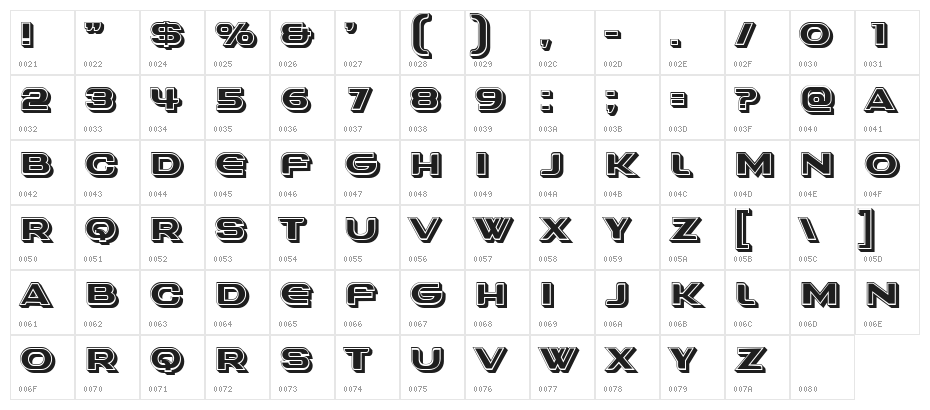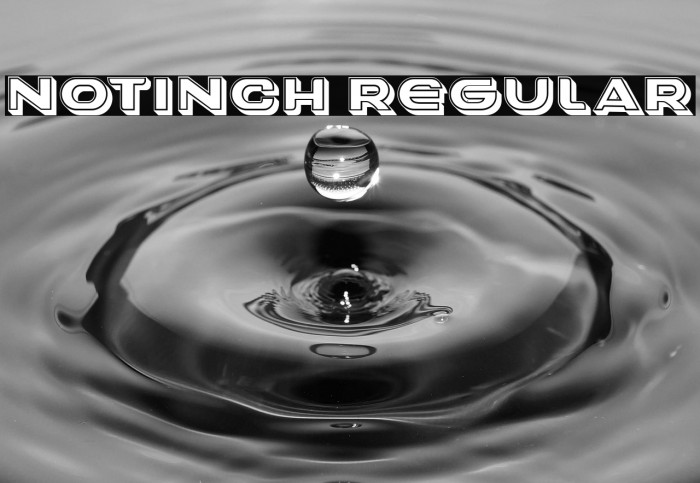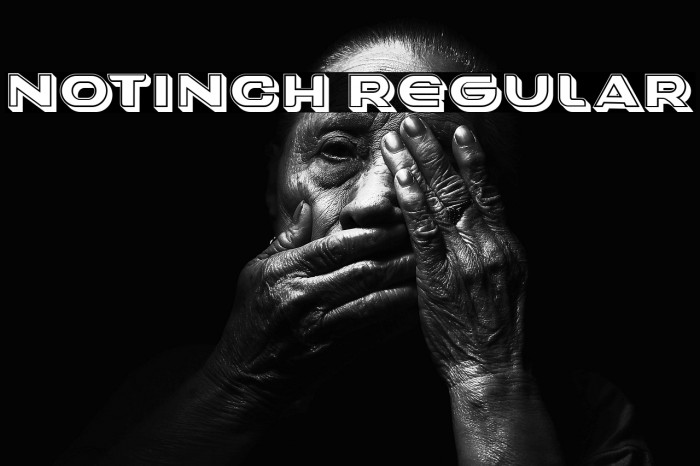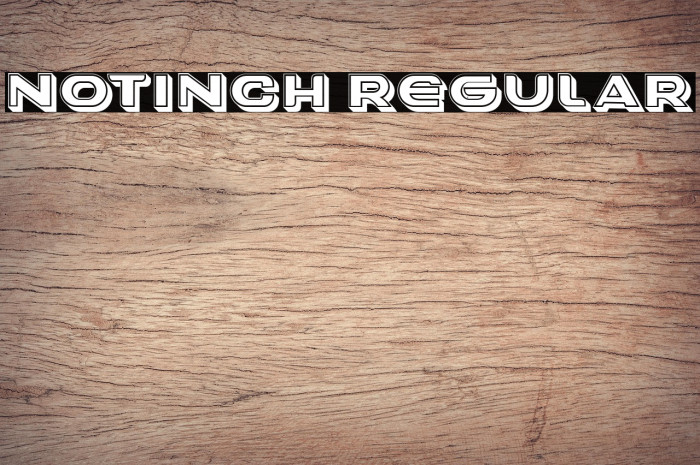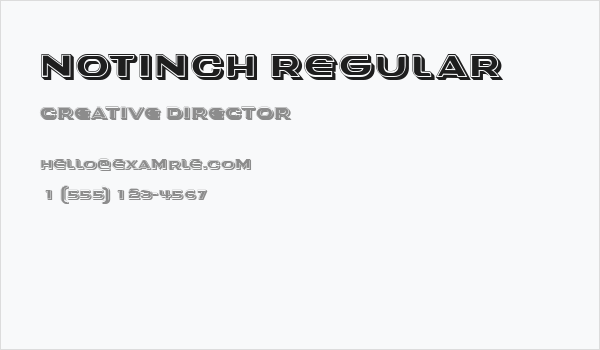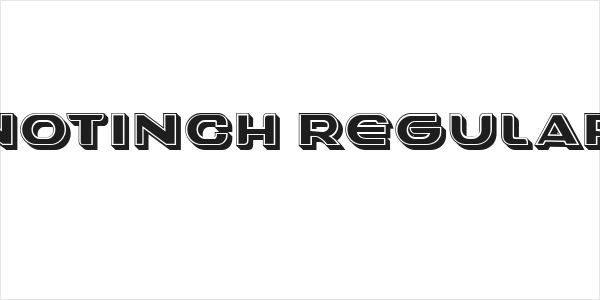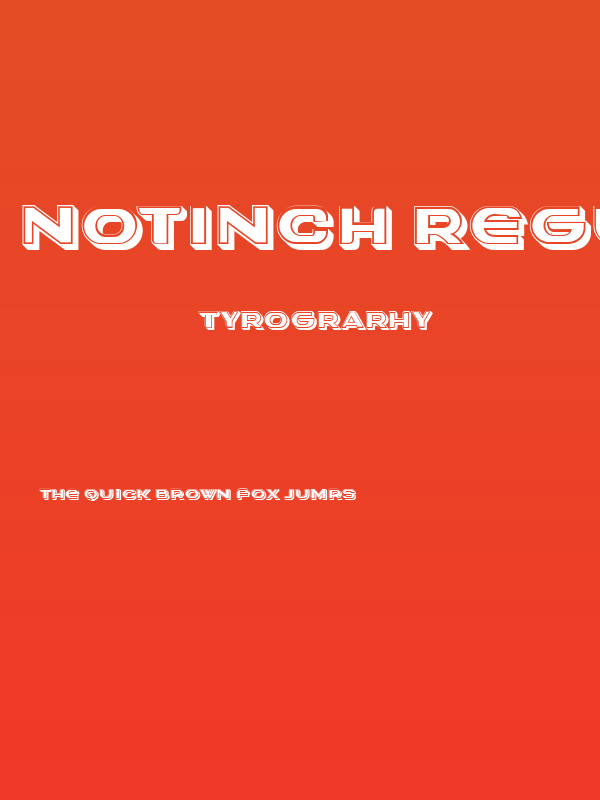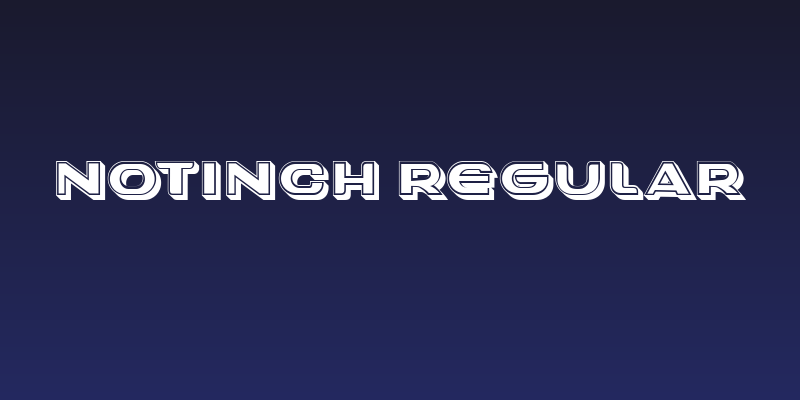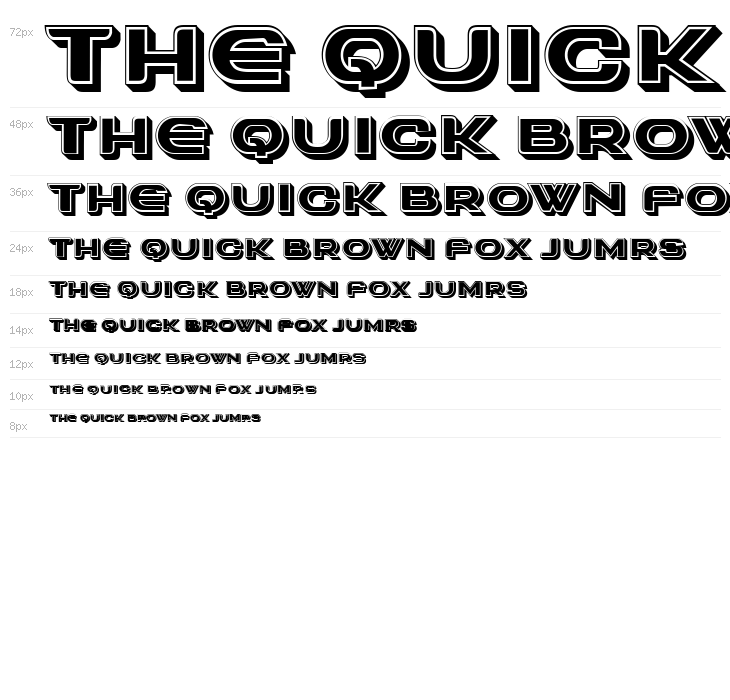
Notinch Regular Font
Notinch Regular Description
This font exhibits a bold, modern style with a three-dimensional effect created by its thick, shadowed outlines. The characters are uppercase and feature a geometric design, with sharp angles and clean lines that give it a futuristic appearance. The numbers and special characters maintain this consistent style, making the font suitable for impactful visual statements. The spacing between characters is normal, allowing for readability while maintaining its striking presence.
| Proposed Projects | Ideal for use in headlines, posters, and branding projects where a strong, modern aesthetic is desired. |